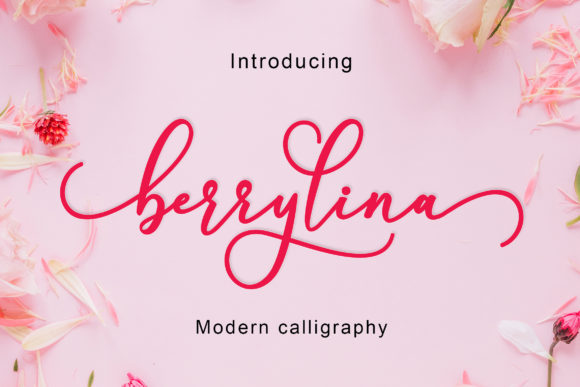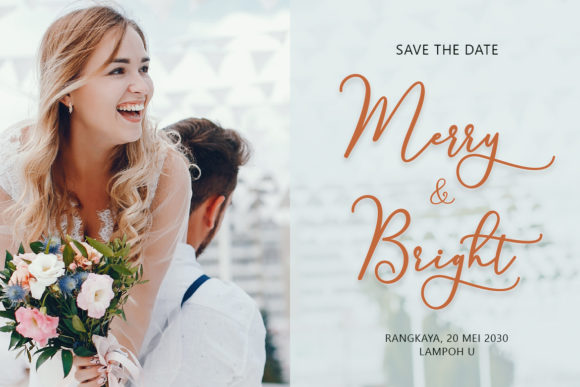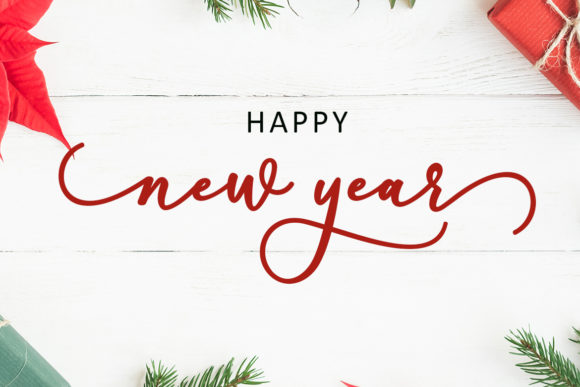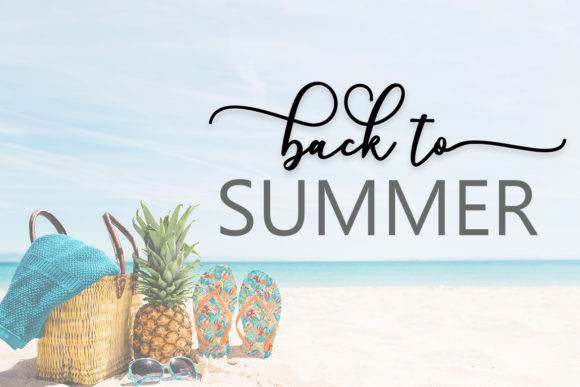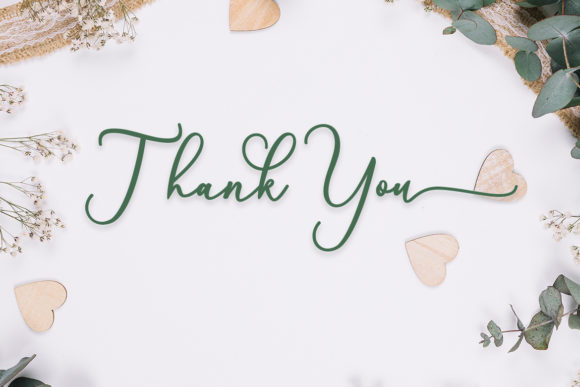
The Perfect Blend of Style and Functionality: Berrylina Script Font
Have you ever been working on a design project and suddenly, a font comes to mind that perfectly captures the essence of your creative vision? For many designers, this is a familiar experience, and it’s exactly what happens when you discover the Berrylina Script Font. This extraordinary script font is designed to add a touch of elegance and sophistication to any project, making it a valuable addition to any designer’s toolkit.
With its wonderfully dynamic swashes, the Berrylina Script Font is perfect for creating eye-catching headings, titles, and even entire designs that exude a sense of luxury and refinement. Whether you’re working on a branding project, a wedding invitation, or a corporate brochure, this font is sure to make a lasting impression. As a designer, you’ll appreciate the flexibility and versatility of the Berrylina Script Font, making it a valuable asset in your creative arsenal.
- Unique Characteristics: Berrylina Script features a beautiful, handwritten feel with subtle variations in letterforms, giving it a personal touch.
Berrylina Script Font Review
I recently had the chance to work with the Berrylina Script font, and I must say it’s been an interesting experience. ✨ One of the things that works well is the font’s ability to convey a sense of elegance and sophistication. The script style is well-executed, and the curves are smooth and flowing.
Another aspect that I appreciate is the font’s versatility. It’s suitable for a wide range of projects, from wedding invitations to branding materials. The font also comes in various weights, which is a nice touch for designers who want to add some depth to their designs.
However, there are some limitations to consider: ⚠️ The font may not be suitable for projects that require a more modern or edgy feel. The script style can come across as too traditional or even clichéd in certain contexts.
Here are some specific things to keep in mind:
- The font may not be as readable at smaller sizes.
- The weight options can be a bit inconsistent in terms of spacing.
Overall, I’d say the Berrylina Script font is a solid choice for designers who want to add a touch of elegance to their projects. Just be mindful of its limitations, and use it in contexts where its style will shine.
For the most effective use of Berrylina Script, use it for:
- Handwritten-style logos and branding
- Quotations and inspirational graphics
Q: Does the Berrylina Script Font include any special features or glyphs?
Yes, the Berrylina Script Font includes a range of special features and glyphs, including ligatures, swashes, and alternates. These can be accessed through your design software’s font menu or by using the font’s built-in features panel.